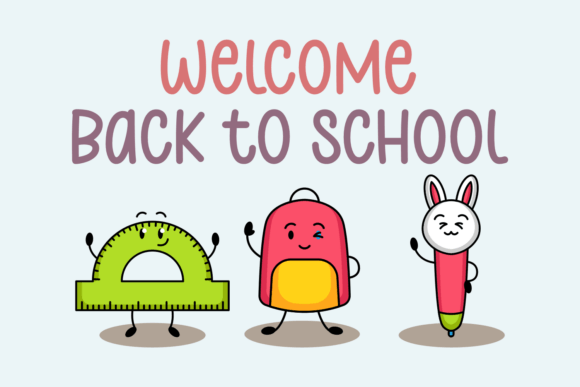
Pretty Teacher Font
Pretty Teacher is a cute, handwritten font that brings a playful and friendly vibe. With its rounded letters and whimsical style, it feels fun and inviting, perfect for projects like children’s books, posters, or any creative work that needs a cheerful touch.